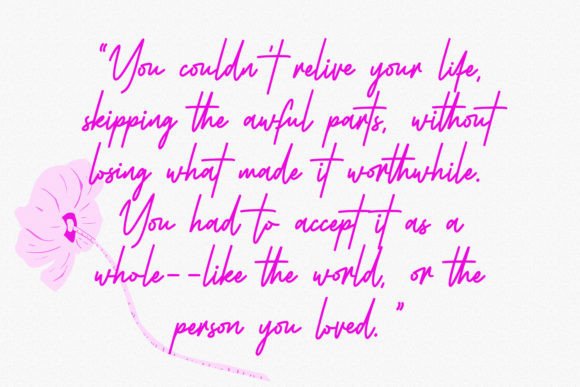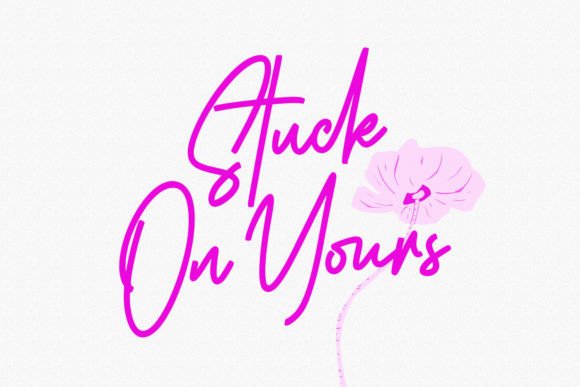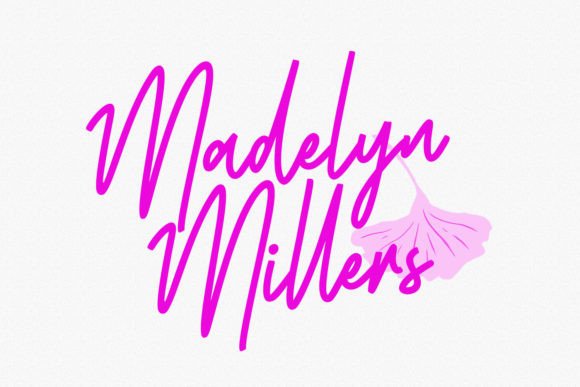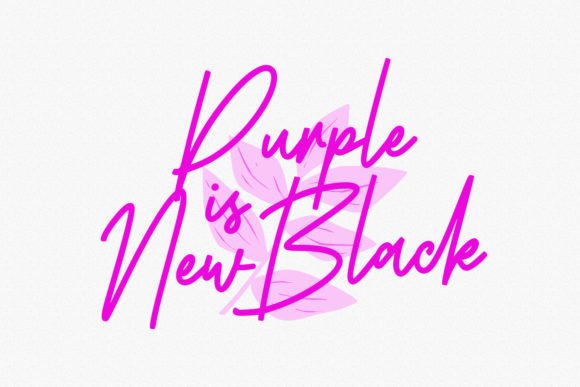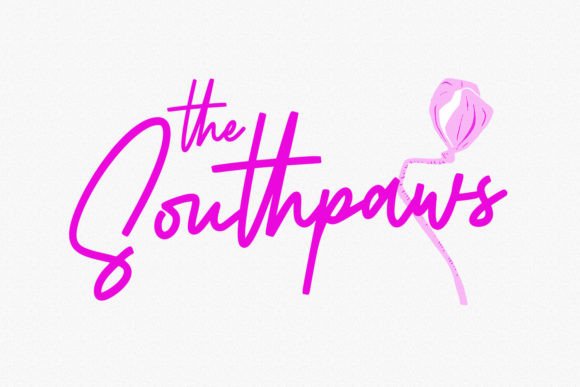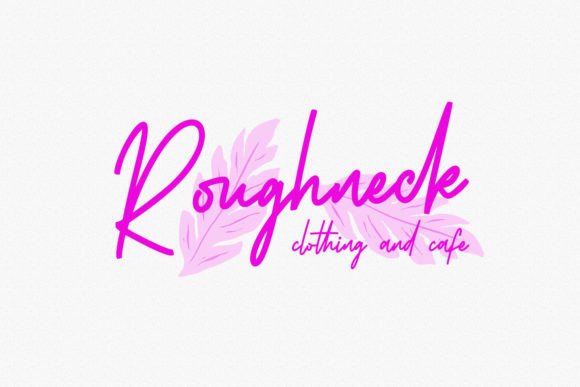
Introduction to Cuffrotes Font
Cuffrotes is a casual and neat signature script font.
Key Features of Cuffrotes Font
Why Choose Cuffrotes Font?
Cuffrotes Font offers exceptional quality and versatility, making it a valuable addition to your design toolkit. Whether you’re creating for personal projects or commercial use, Cuffrotes Font delivers professional results.